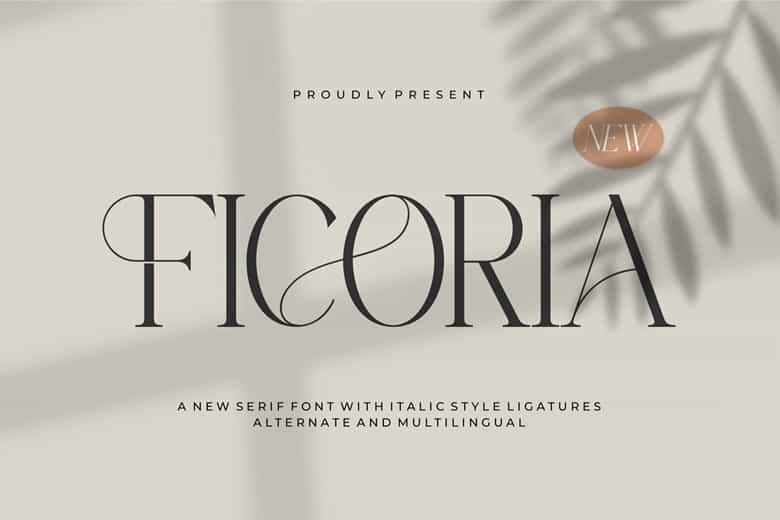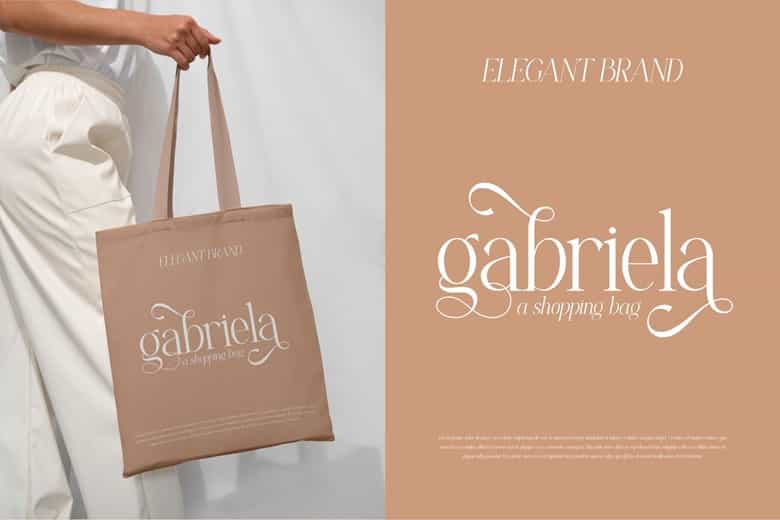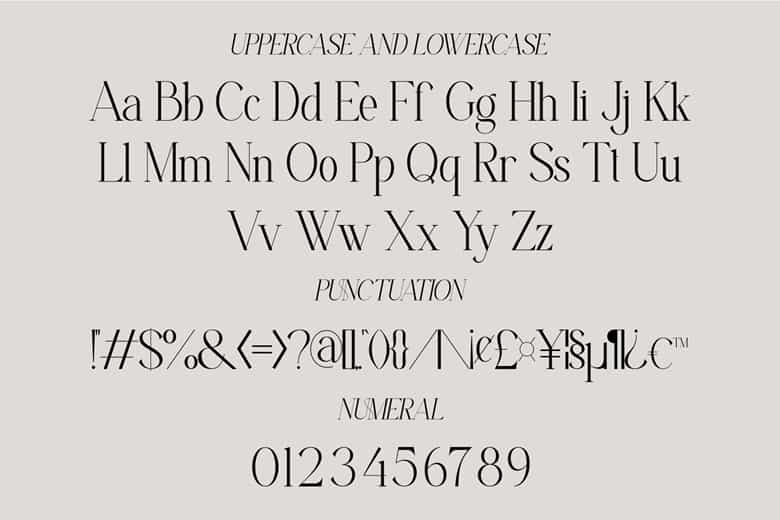
Ficoria is one of the modern and elegant serif font that come in both regular and italic style for all your branding or logo requirements. This modern and classy serif font has a beautiful character. Though it is bold, this font is suitable for use in invitation card designs, cool logos, movie tiles, movie names, business cards, book tiles, brand names, and other designs.